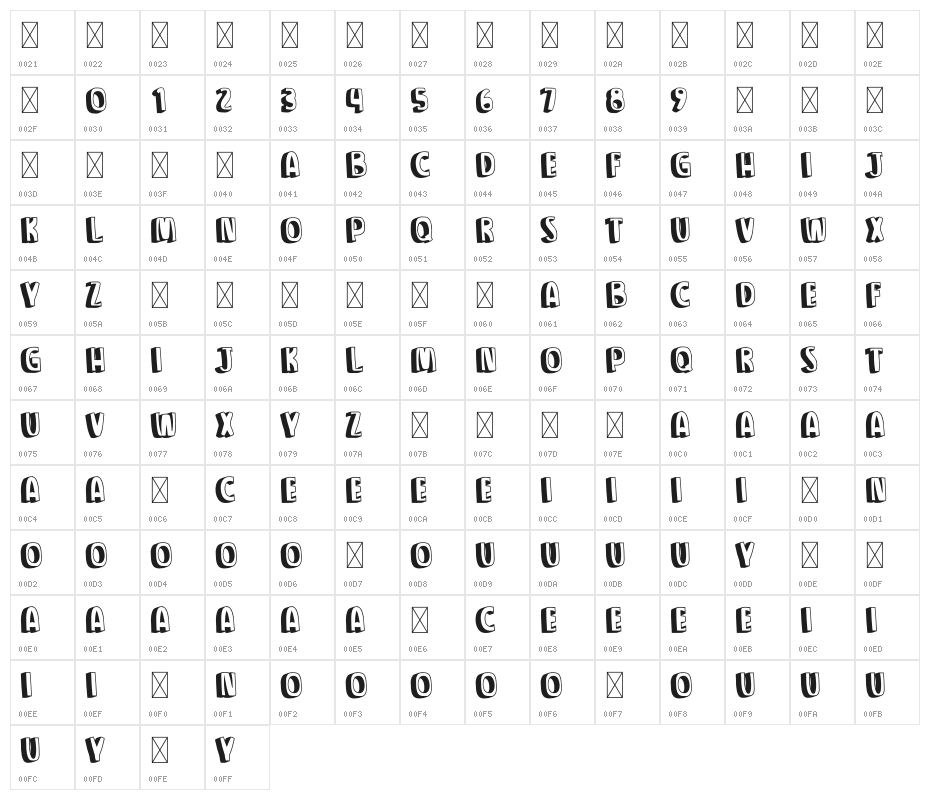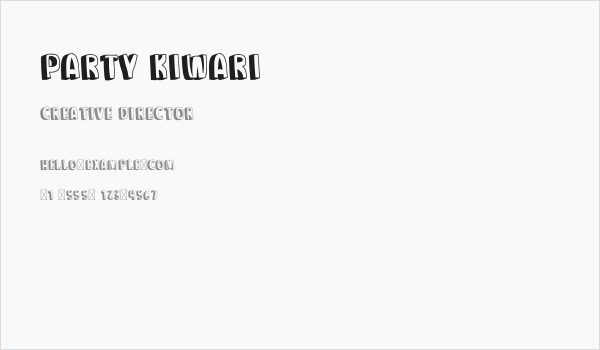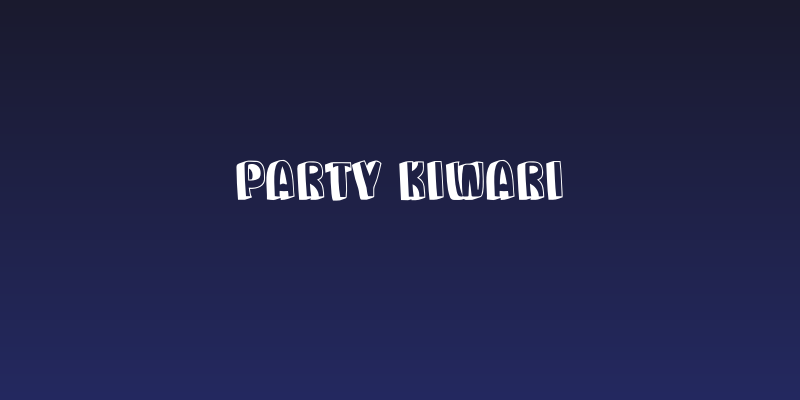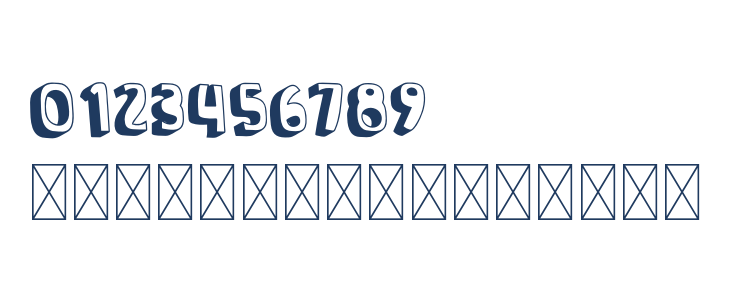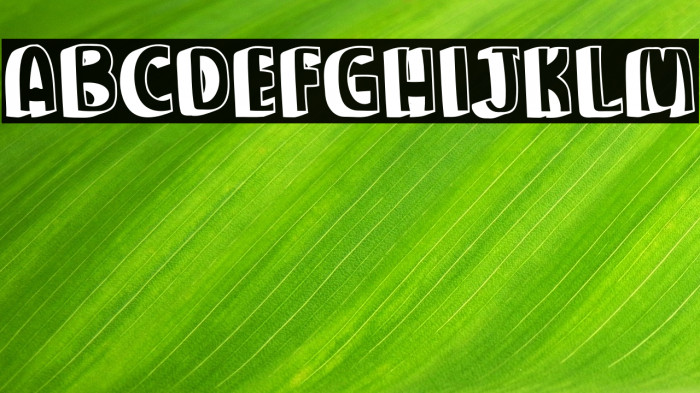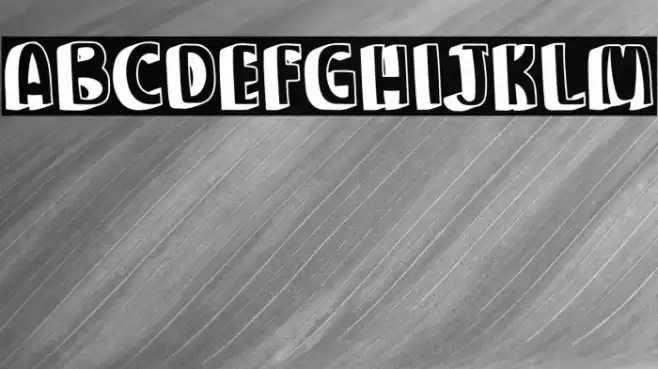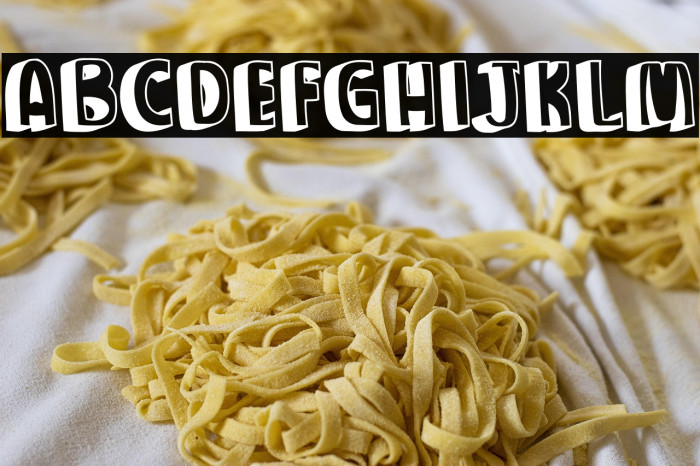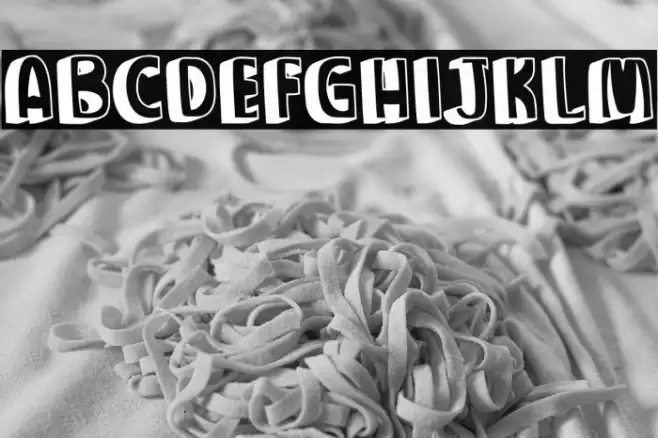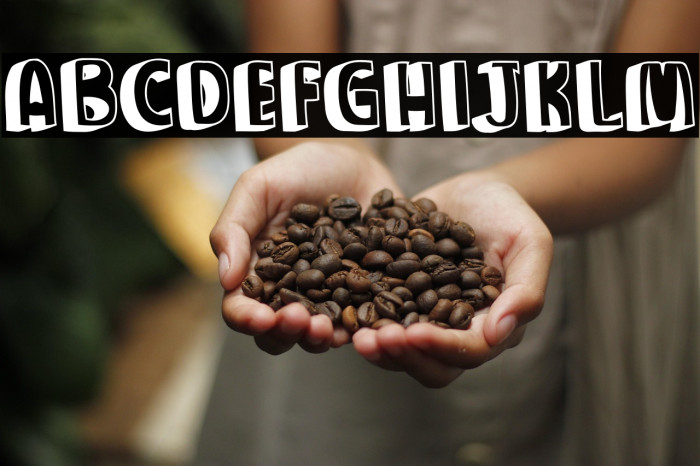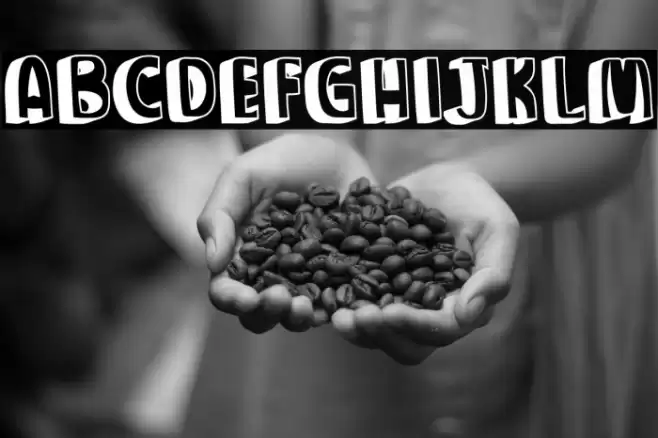
Party Kiwari Font
Party Kiwari Description
This font features a playful and bold design with a three-dimensional effect that gives each character a sense of depth. The letters are uppercase and have a chunky, rounded appearance, making them stand out prominently. The style is reminiscent of comic book lettering, with exaggerated curves and a dynamic presence. The numbers follow the same playful style, ensuring consistency across all characters. This font is ideal for projects that require a fun and eye-catching look, such as party invitations, posters, or children's book covers. The boldness and unique style make it unsuitable for body text but perfect for headlines or titles.
| Overall Style | Playful, Comic |
| Proposed Projects | Party invitations, posters, children's books, comic titles. |